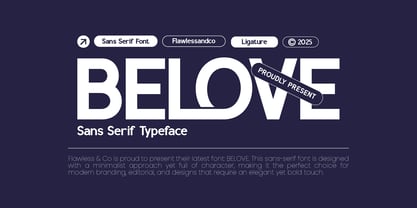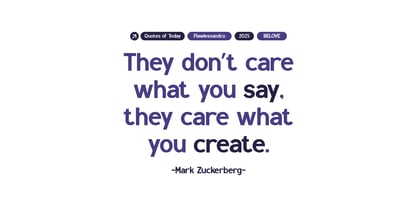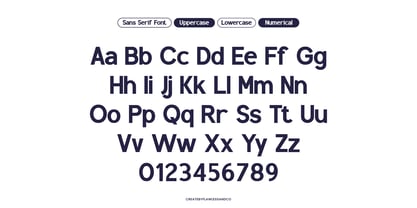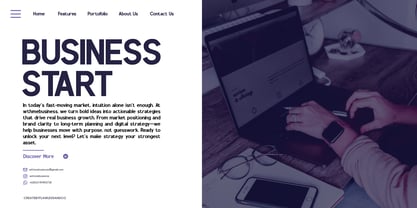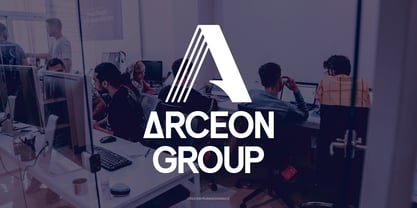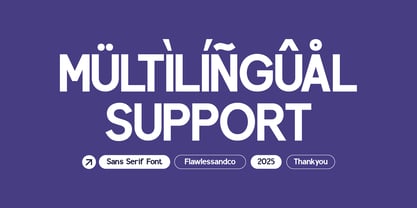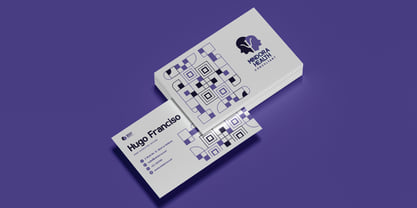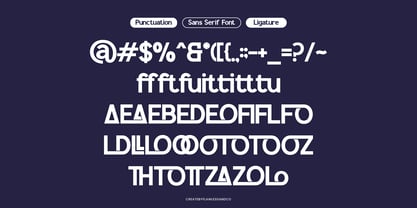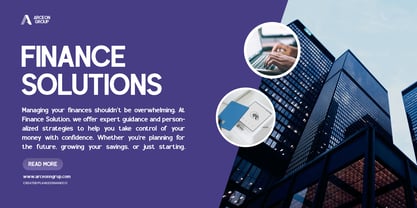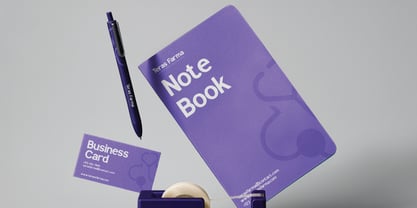
Belove
La famille de polices Belove a été conçue par Achmad Yani et publiée par Flawlessandco. Belove contient 1 styles. En savoir plus sur cette famille
Belove is a clean and modern sans serif typeface designed for clarity, versatility, and visual impact. With its smooth curves, balanced spacing, and minimal yet refined structure, Belove is ideal for a wide range of creative and professional applications—from custom book designs and editorial layouts to brand identities and business-focused projects. This font was created to be highly functional while still feeling warm and approachable. Whether you're building a personal brand, designing marketing materials, or developing a creative product, Belove offers the flexibility and elegance you need to make your work stand out.
Features :
Multilingual, Uppercase alphabet A-Z, Lowercase alphabet a-z, Numbers 0-9, Some punctuation, Alternates & Ligatures